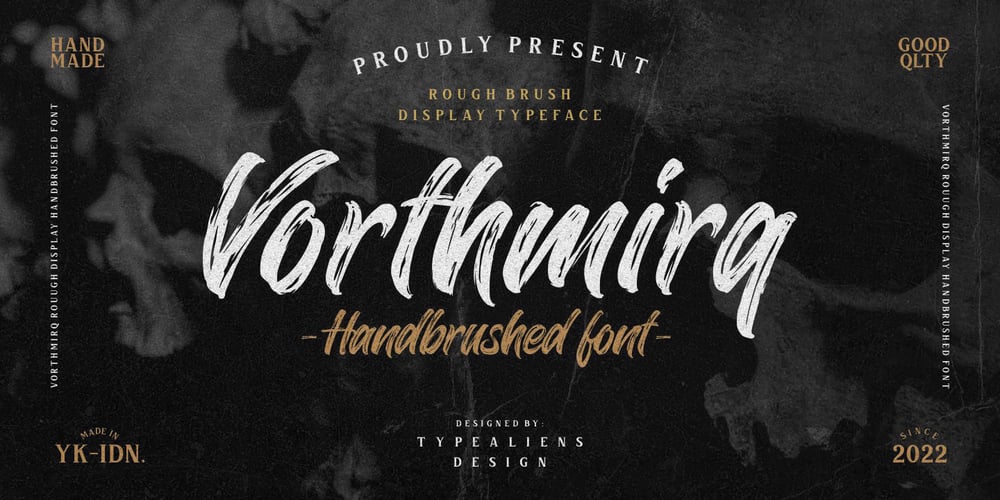
Vorthmirq Font Family was designed by Ilham Wahyu and published by Ilhamtaro. Vorthmirq contains 1 styles and family package options. VORTHMIRQ is a script display font with a texture brush, a font that is basically made from digital calligraphy, so it feels very thick with the calligraphy style using a brush on this font. Fonts that are suitable for modern designs such as youth fashion, skateboard brands, quotes, etc. This script font with a texture brush makes this font flexible because it doesn’t look feminine, making it easy to apply to non-feminine designs.YOU WILL GET : To enable the OpenType Stylistic alternates, you need a program that supports OpenType features such as Adobe Illustrator CS, Adobe Indesign & CorelDraw X6-X7.Cheers!